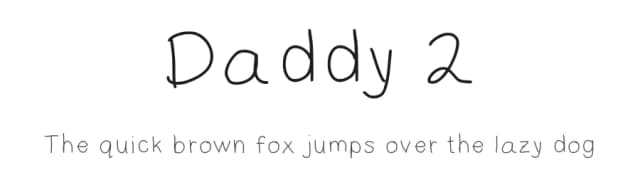
About Daddy Font
Daddy is a script & handwritten font designed by Ann Bennett. It includes 81 glyphs, a medium weight, TTF (TrueType) format, and 105 languages. Daddy is free to download; check the license details on this page before commercial use. Script & handwritten fonts like Daddy work best for wedding invitations, greeting cards, signatures, and elegant branding.
Daddy Font is a script font that shines as a display or heading face. Pair it with a clean sans-serif or serif font for body text β the contrast creates a clear hierarchy while the two styles stay balanced and easy to read.
Daddy Font
by Ann Bennett
Daddy Font is a script handwritten typeface by Ann Bennett, ideal for logos, invitations, branding, and creative projects.